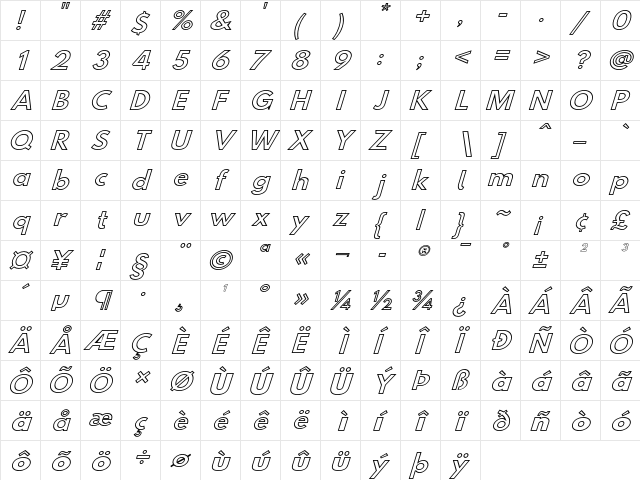
Hussar Simple ExtGhoObl3
Design Context for Hussar Simple Typeface
Hussar Simple takes a measured approach to typography — its balanced proportions and neutral character make it a reliable workhorse for both digital and print work.